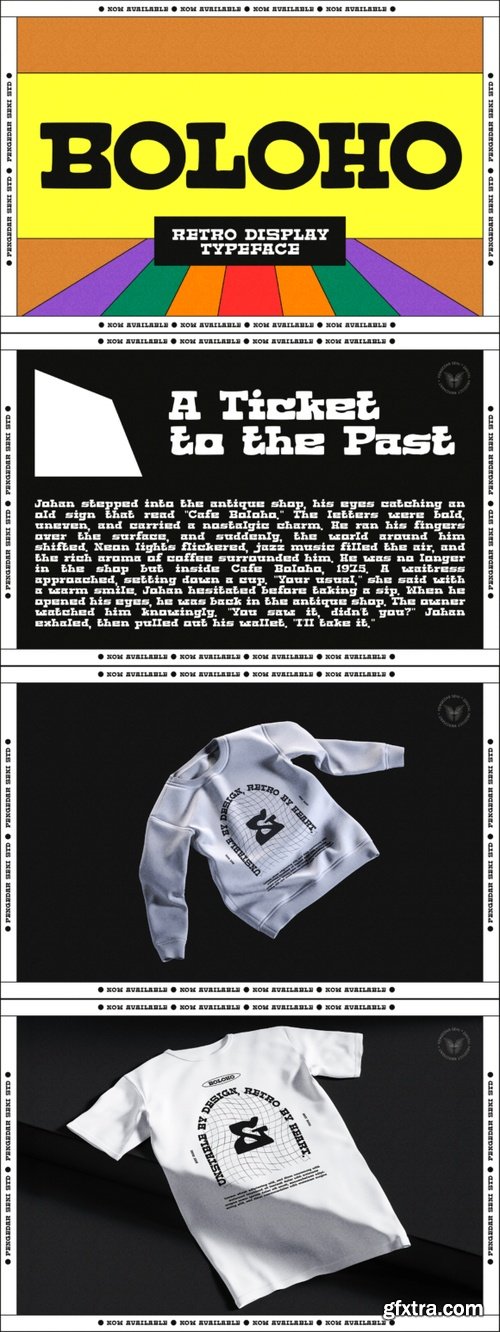
- Boloho is an ultra-bold display typeface that captures the raw, unpolished charm of vintage typography. With its unstable, hand-crafted aesthetic, Boloho rejects rigid precision, embracing a natural imperfection that brings warmth and character to any design. Whether for posters, branding, headlines, or retro-inspired visuals, this font delivers a nostalgic yet rebellious statement.